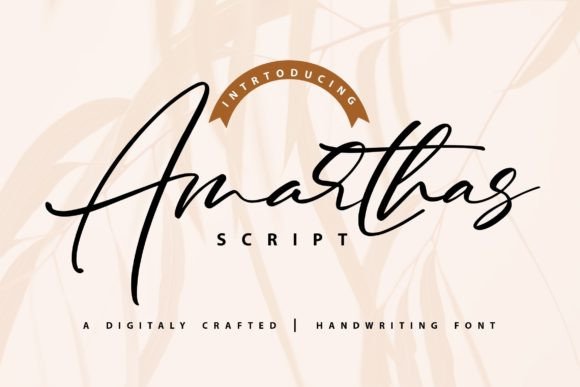
Introducing Amarthas Font, the enchanting script typeface that will captivate your audience and leave a lasting impression.
Immerse yourself in the world of elegance and sophistication with Amarthas Font. Its graceful curves and flowing lines will elevate your designs to new heights. Whether you're crafting heartfelt greeting cards, designing eye-catching headlines, or creating logos that exude timeless charm, Amarthas Font has got you covered.
As a PUA-encoded font, Amarthas Font empowers you to effortlessly access a treasure trove of glyphs and swashes. Unleash your creativity and add a touch of magic to your digital creations.
Amarthas Font isn't just a collection of letters; it's an invitation to express your individuality and make a statement. Embrace the beauty of handwritten fonts and let Amarthas Font guide you on a journey of style and elegance.
Don't settle for ordinary fonts. Choose Amarthas Font and let your designs bloom with enchanting grace.